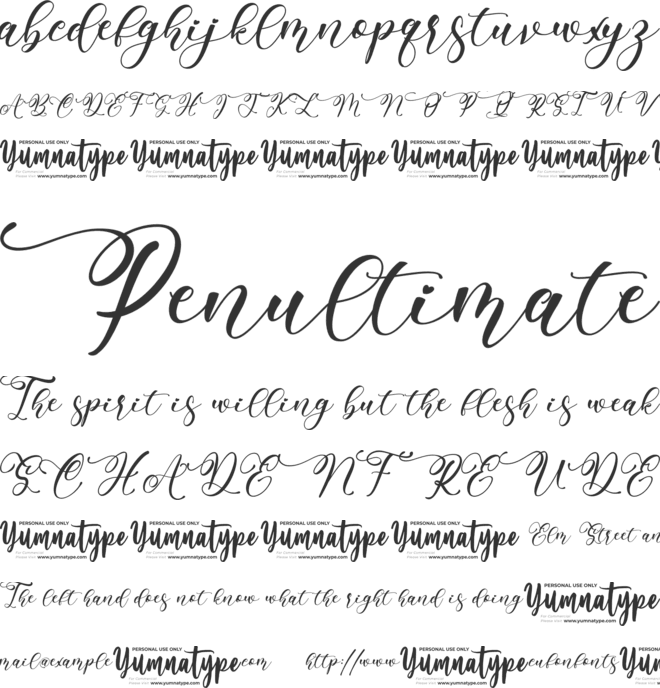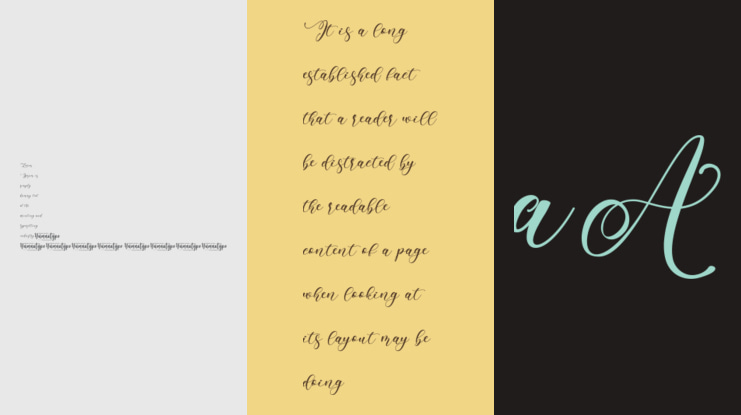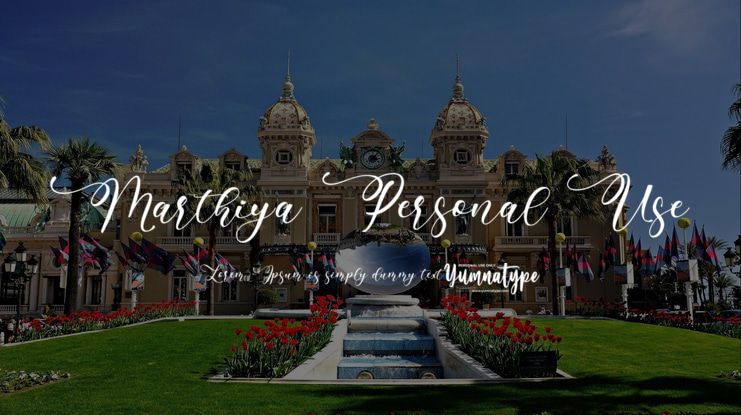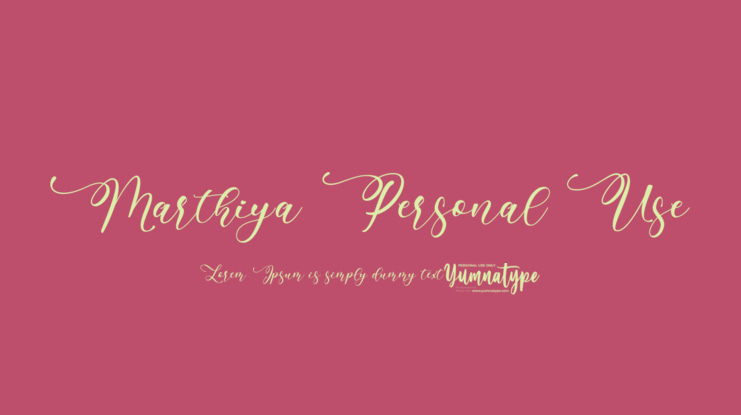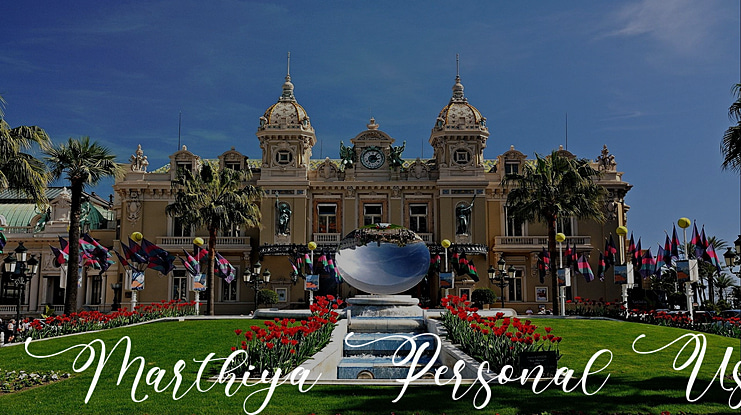
Say hello to Marthiya Script.
Marthiya is a beautiful and modern script.
It brings a beautiful and modern typeface that best used for weddings, branding, logotype, and quotes.